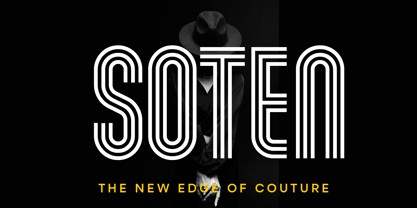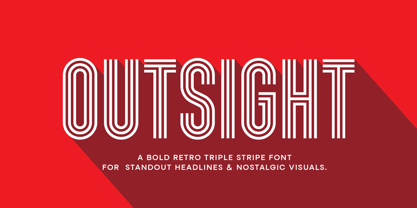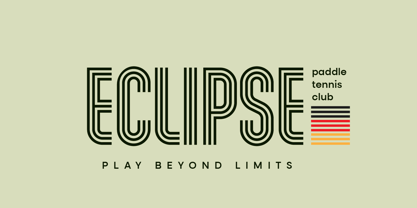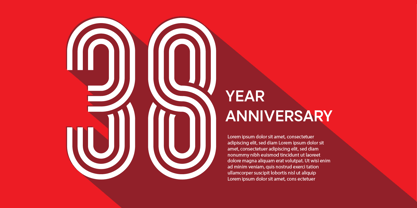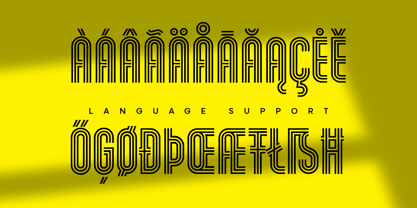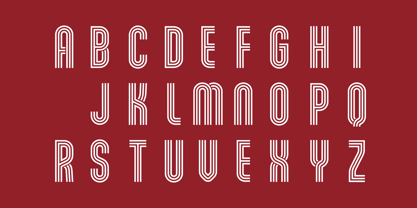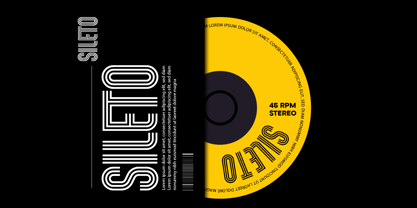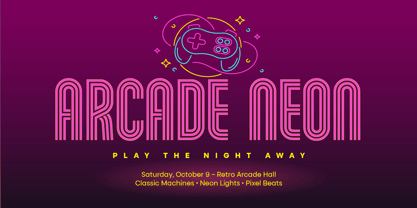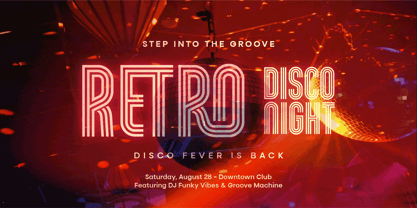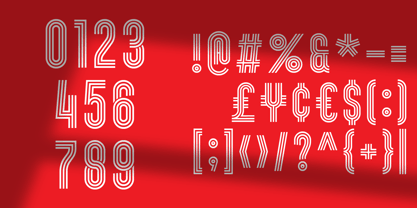
Outsight
The Outsight Font Family was designed by Muhammad Ridha Agusni, Muhammad Mevlana Maliq Azizi and published by MMMA Creative. Outsight contains 1 styles. More about this family
Outsight isn’t just typography, it’s visual rhythm. Its bold triple-stripe design brings a sense of movement, groove, and dimensionality, making it perfect for designs that demand attention. From retro disco posters and arcade visuals to sports branding and anniversary campaigns, Outsight adapts seamlessly to different moods while keeping its unique flair.
The typeface thrives in large display settings where its linear patterns can shine. Think club flyers, music covers, lifestyle events, or editorial spreads. Pair it with vibrant gradients, neon colors, or metallic textures to unlock its full nostalgic power, or keep it minimal and monochrome for a sleek, modern edge.
With its versatility, multilingual support, and creative ligatures, Outsight is a go-to choice for designers who want to merge vintage charm with contemporary energy.